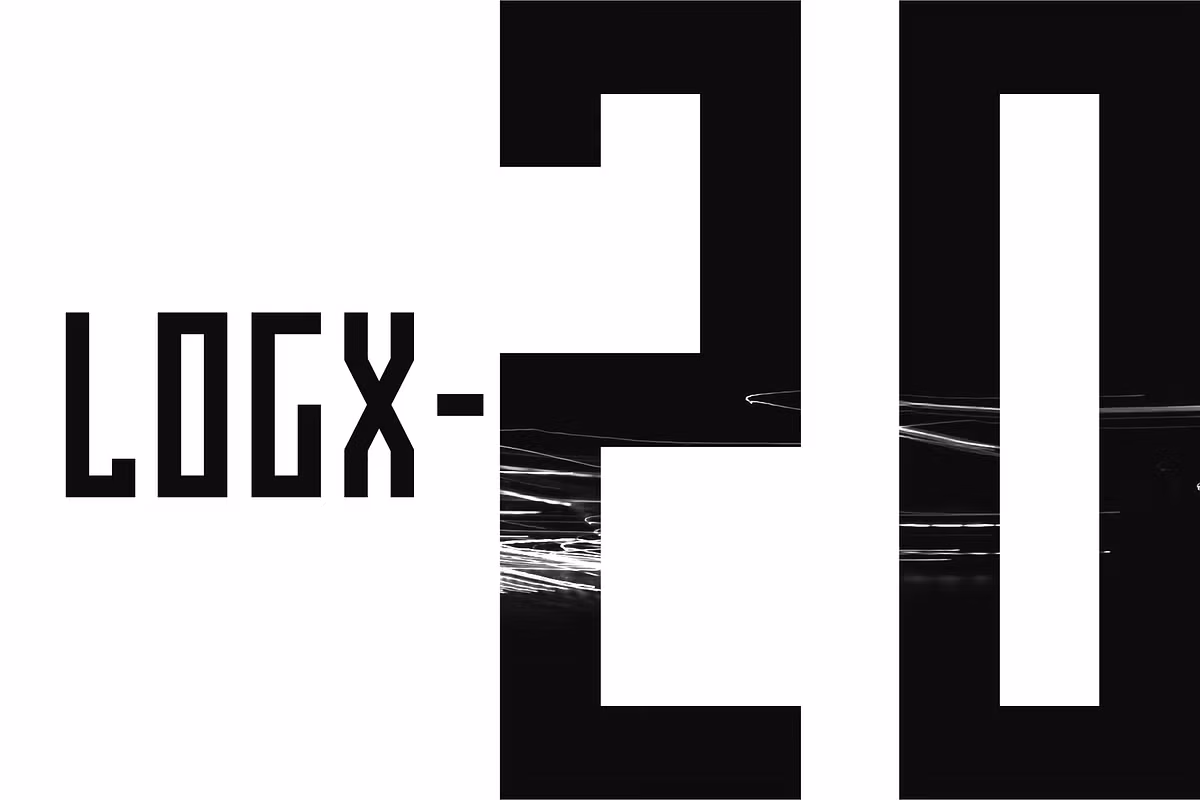
LOGX-20 Font Free Download is a modern, sleek typeface family designed with precision and clarity in mind. Featuring a range of weights, from thin to bold, LOGX-20 is perfect for high-tech branding, websites, corporate materials, and clean, professional design projects. Its geometric, sans-serif structure ensures readability while giving your design a contemporary and polished look.
LOGX-20 Font Free Download is ideal for both display and body text, offering flexibility and legibility across a wide range of applications. Whether you’re designing a website interface, creating a modern logo, or working on business collateral, LOGX-20 provides a cohesive, clean type solution for all your design needs.
With its minimalist design, LOGX-20 pairs beautifully with other fonts, providing contrast and harmony for dynamic layouts. Its versatile weight options make it suitable for any project that requires a modern touch with professional appeal.